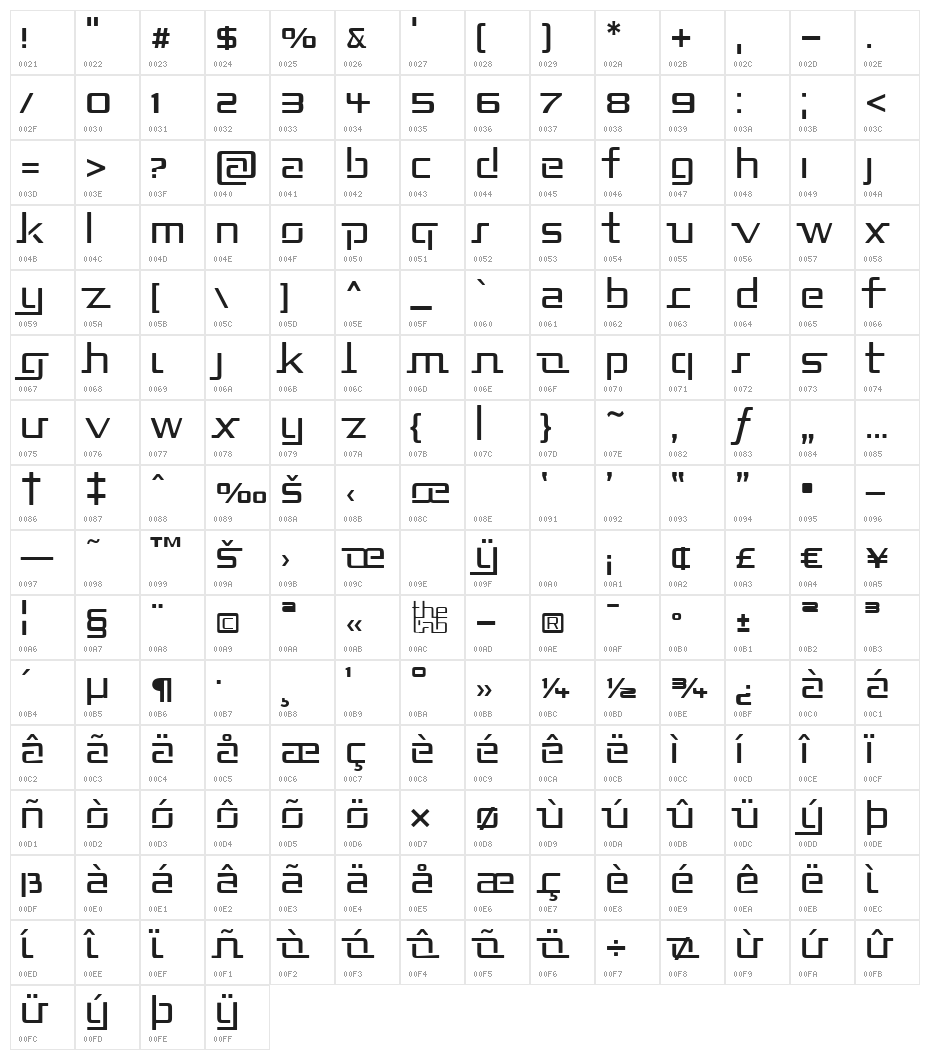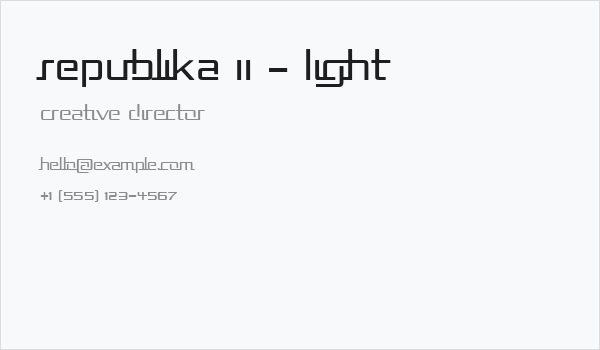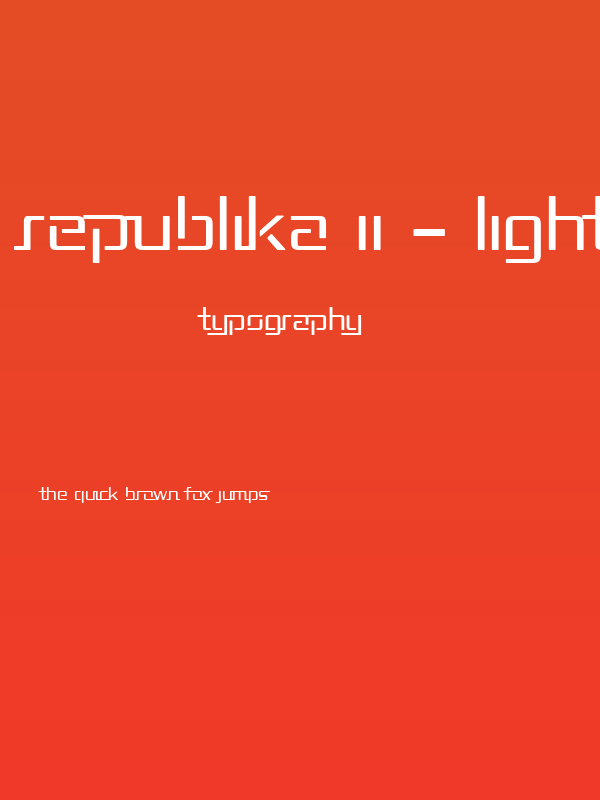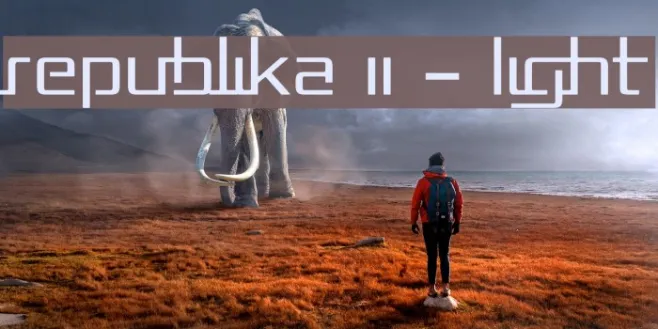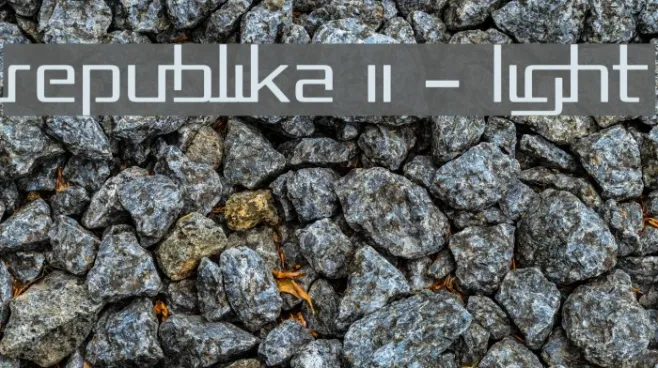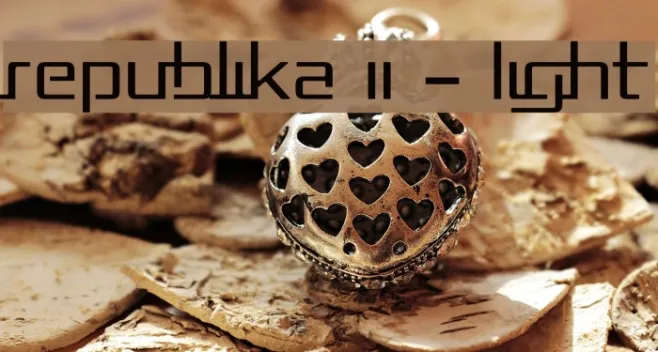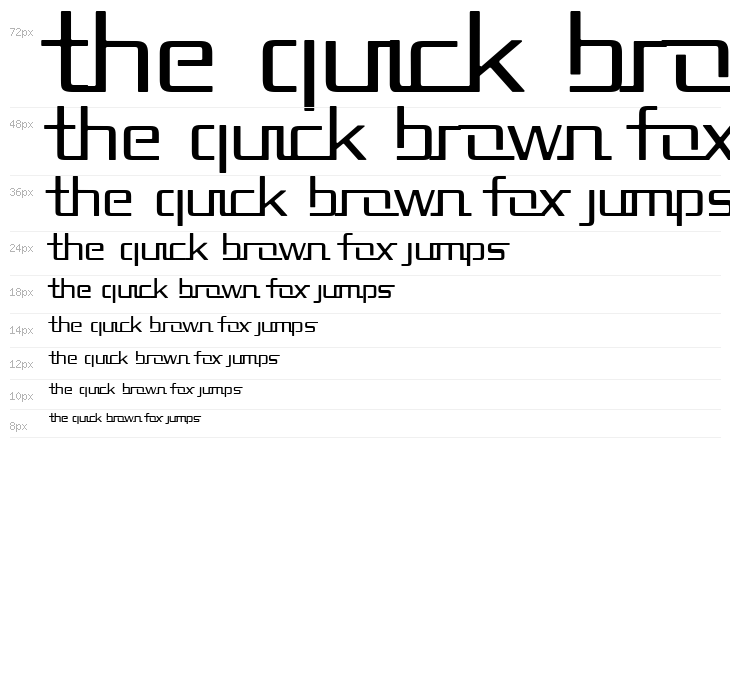
Republika II - Light Font
Republika II - Light Description
This font features a geometric and futuristic design with clean, angular lines and a consistent stroke width. The characters are structured with a modern, technical aesthetic, making them suitable for digital and tech-oriented projects. The uppercase and lowercase letters maintain a uniform height, contributing to a cohesive appearance. The numerals and special characters are designed to match the overall style, with a focus on readability and precision. The font's minimalistic approach and sharp edges give it a distinctive, contemporary look.
| Proposed Projects | Ideal for tech branding, digital interfaces, modern posters, and futuristic designs. |